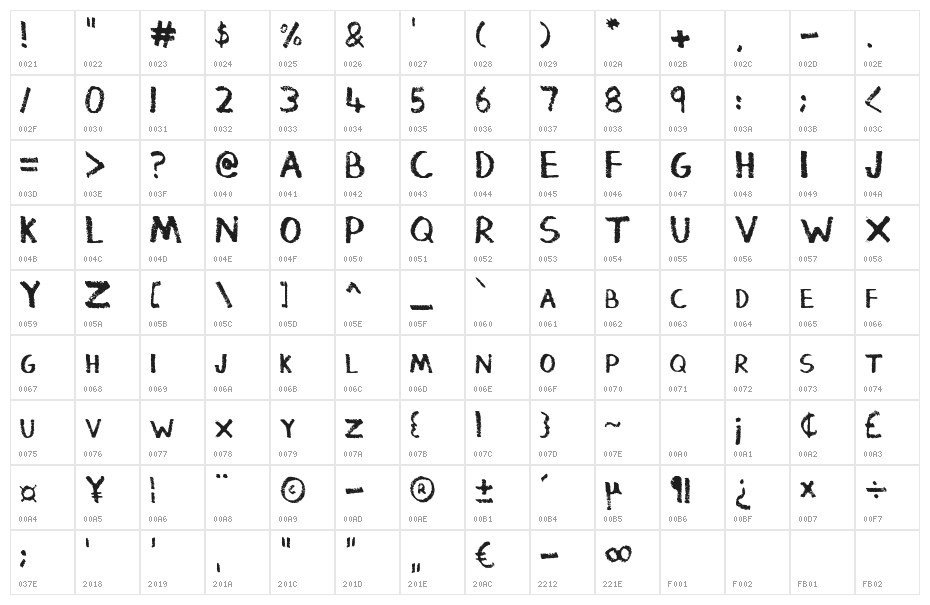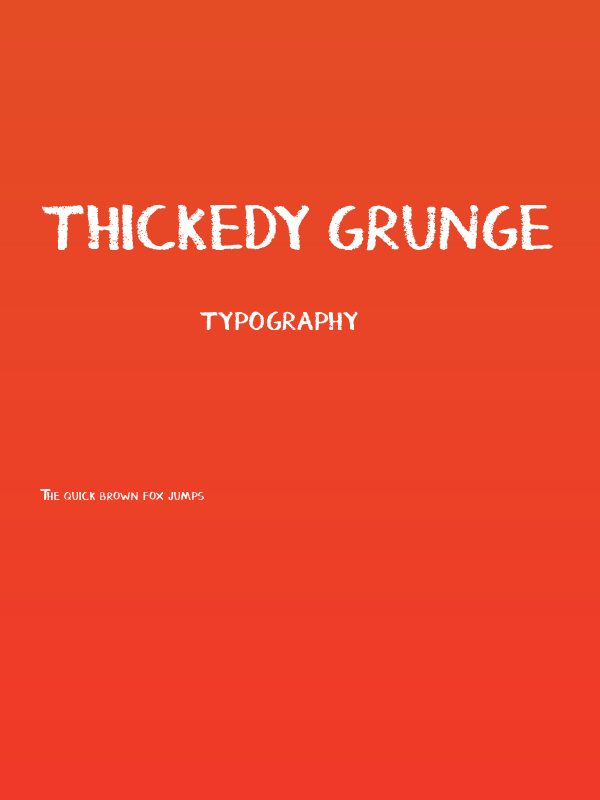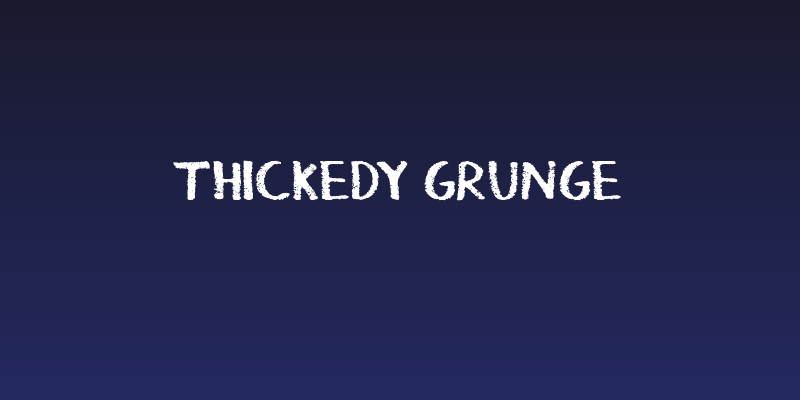
Thickedy Grunge Font
Thickedy Grunge Description
This font features a bold, textured appearance with a grunge aesthetic, characterized by rough edges and a distressed look. The uppercase and lowercase letters maintain a consistent style, with each character exhibiting a hand-drawn quality. The numerals and special characters follow the same rugged design, adding to the font's cohesive appearance. The overall effect is striking and impactful, making it suitable for designs that require a raw, edgy feel. The font's unique texture and boldness make it stand out, while its legibility ensures it remains functional for various applications.
Overall StyleGrunge, Decorative
Proposed ProjectsIdeal for album covers, posters, branding projects, and any design requiring a bold, edgy look.